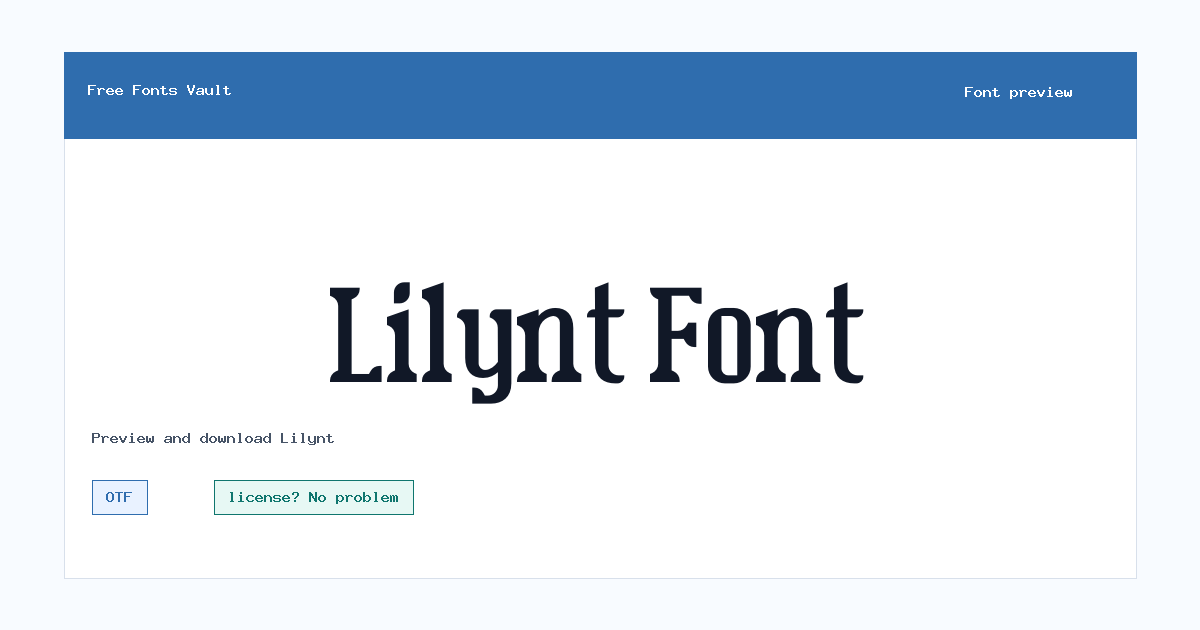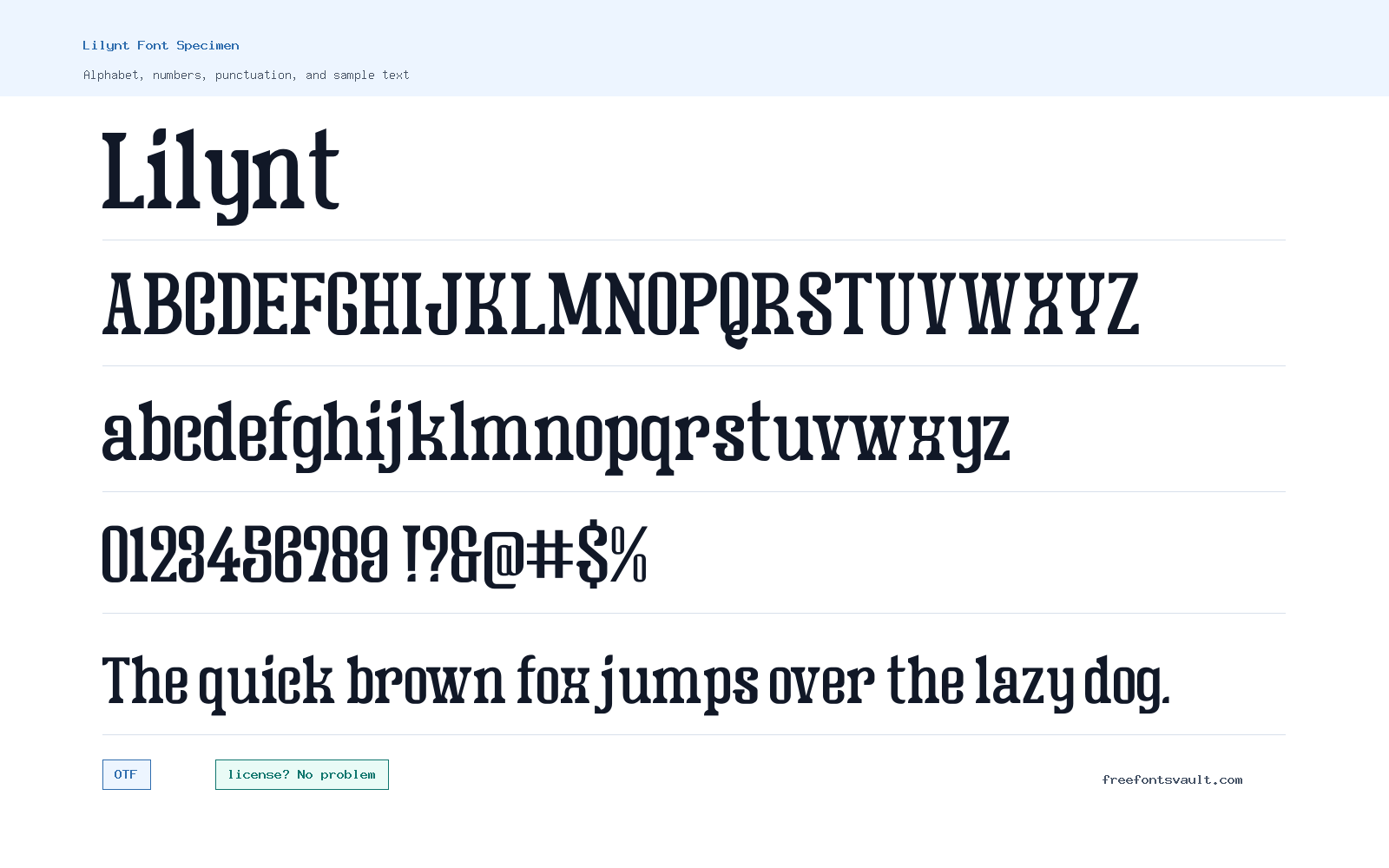
Lilynt
- Designer Risma Mulyasari
- Foundry Risma Type
Lilynt font.
Lilynt is a serif display font family from Risma Type with Regular and Italic styles. Its high-contrast letter shapes give short words a refined, vintage-leaning look, making it better suited to headings and decorative text than long paragraphs.
About Lilynt Font
Lilynt works best when the text has room to breathe. The Regular style is useful for titles, nameplates, invitation headings, editorial-style graphics, and short branding mockups. The Italic style adds a more slanted, expressive option for accent lines, quotes, subheadings, or paired words in a layout. Because the family is offered here as OTF files, it should work in most common design apps that support OpenType fonts.
Use the preview box to test the exact words you plan to design with, especially names, initials, punctuation, and mixed-case text. Display serifs with contrast can look beautiful at large sizes, but they may lose clarity when used too small or squeezed into dense layouts. Try Lilynt for a main word or short phrase, then pair it with a simple sans serif or quiet text serif for body copy so the design stays readable.
Lilynt works best in designs that need contrast, elegance, and a boutique editorial tone. Try it for beauty packaging, fashion headlines, wedding names, magazine covers, logo sketches, and short pull quotes. The Italic style can add movement, but it should be tested separately because it changes the rhythm of longer names.
- Serif display character with a vintage, high-contrast feel
- Useful for short headlines, invitations, logo drafts, and social graphics
- Better for large text than long reading passages
- Invitation titles and event headings
- Logo concepts and name-based mockups
- Editorial-style posters or cover graphics
- Short quotes, labels, and decorative social media text
Lilynt is credited to Risma Mulyasari and published by Risma Type.
For the cleanest result, set Lilynt at display sizes and keep the wording short. Check spacing around uppercase letters, test the Italic style separately, and avoid using it for small body text. If your project is public-facing or commercial, confirm the license before using the font in final artwork. Pair it with a restrained sans serif when the layout also needs readable supporting copy.
What styles are included with Lilynt?
The font family includes Regular and Italic styles.
What is Lilynt best used for?
Lilynt is best for short display text such as titles, invitations, logo drafts, posters, and decorative graphics. It is not the best choice for long body text.
Who designed Lilynt?
Lilynt is credited to Risma Mulyasari and Risma Type.